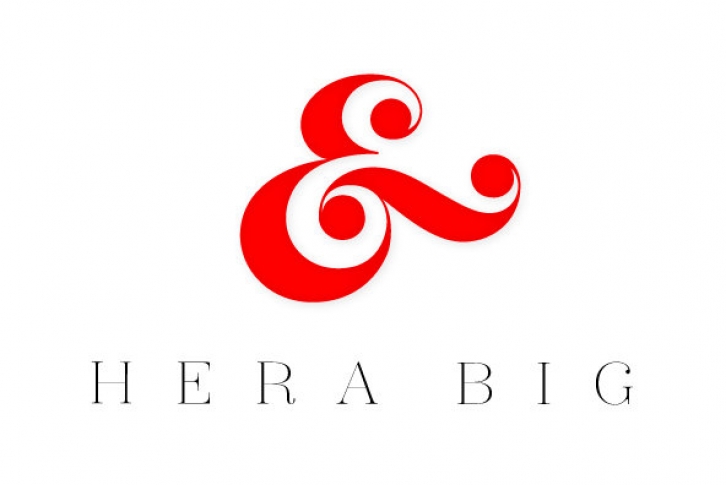
Hera Big is a type family in eight weights & 16 fonts. The family explores the motion and fluidity of the ball serif, in an evolution from its previous identity as a counterpart to the slab serif. Informed by great fat-faces from Figgins to Lubalin, but never deferring to precedent by default, Hera is a fresh mix of originality and organic form, never sacrificing function for beauty. Opentype Features: A rubust set of stylistic alternates, ligatures, and contextual alternates as well as old-style figures. Language Support: Afrikaans, Basque, Bokmal Norwegian, Bosnian, Breton, Catalan, Croatian, Czech, Danish, Dutch, English, Esperanto, Estonian, Faroese, Finnish, French, Friulian, Gaelic, German, Greenlandic, Hawaiian, Hungarian, Icelandic, Indonesian, Irish, Italian, Ladin, Latin, Latinized Kurdish, Latvian, Lithuanian, Luxembourgish, Maltese, Nones, Norwegian, Polish, Portuguese, Romani, Romanian, Romansh, Serbian, Slovak, Slovene, Solandro, Sorbian, Spanish, Swahili, Swedish, Turkish, and Welsh.